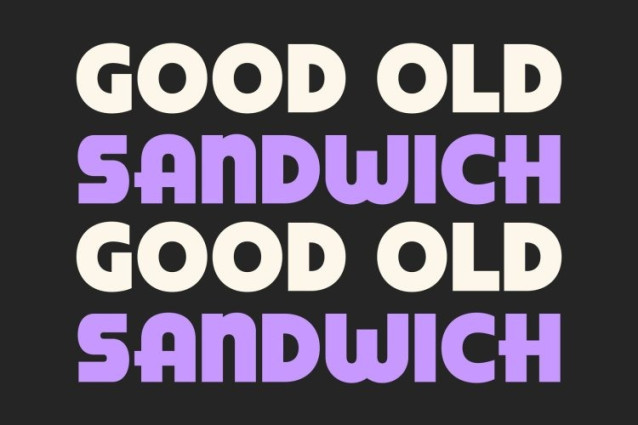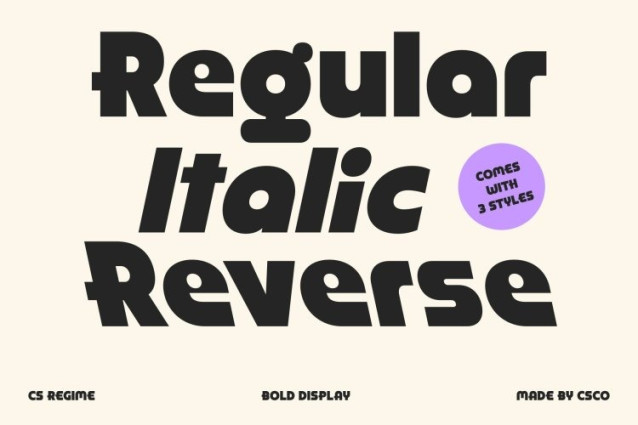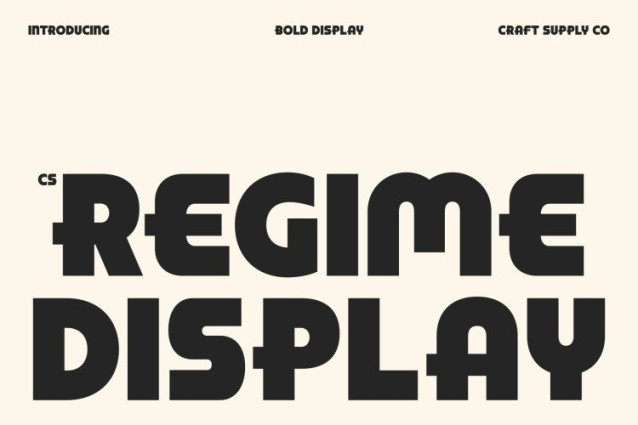
CS Regime Font
CS Regime Font This is a bold display font that blends retro character with a modern design sensibility. Inspired by classic Bauhaus principles, this typeface embraces geometric forms and modular construction to create a strong, visually engaging presence. Its design celebrates iconic design movements while delivering a fresh and contemporary look suited for today’s creative projects.
Geometric Shapes with Modular Structure
The letterforms of this font are built from clean geometric elements, forming a cohesive and balanced typographic system. Circles, straight lines, and simplified curves come together to create bold characters with a rhythmic, modular aesthetic. This structured approach gives the font a distinctive personality that feels both playful and precise.
Retro Influence with Modern Expression
This font channels the spirit of early modernist design while maintaining a stylish, up-to-date execution. The retro influence adds charm and historical depth, while the bold weight and clean construction keep the font feeling current and relevant. This fusion makes this font ideal for designers who want to reference classic design heritage without sacrificing modern appeal.
Versatile for Posters, Branding, and Editorial Layouts
Designed for impact and versatility, performs exceptionally well in posters, branding systems, editorial layouts, and creative campaigns. Its bold geometry ensures strong visibility, while its modular style adds visual interest and sophistication.